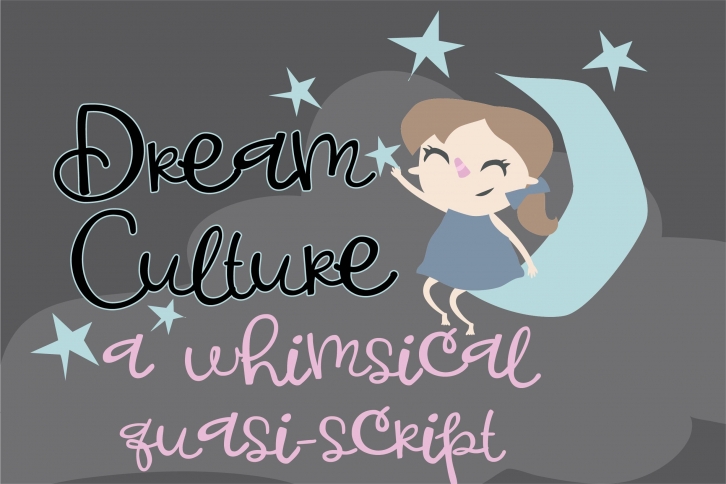
PN Dream Culture is a great font that was designed by Illustration Ink. Imagine the amount of combinations you can create using this font! The archive is 1.19 MB and it was released on January 31, 2020. PN Dream Culture looks beautiful on wedding invitations, greeting cards, logos, posters, labels, t-shirt designs, logos, business cards and is perfect for use in ink or watercolor works, fashion, magazines, packaging and food menus, children's books and more!